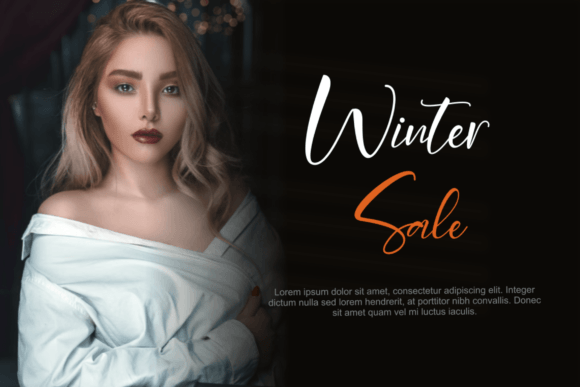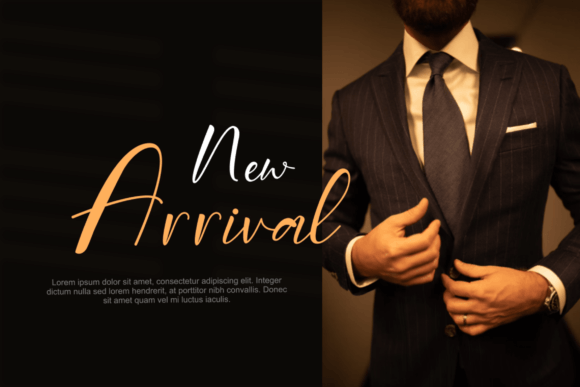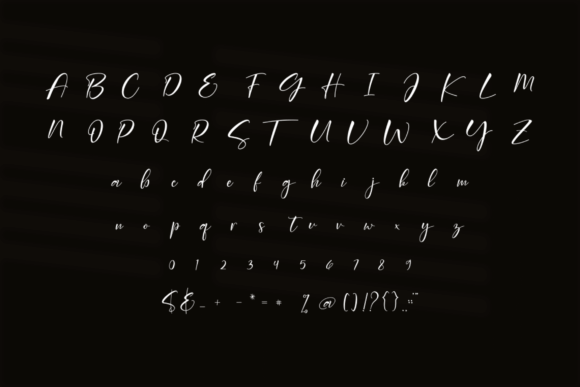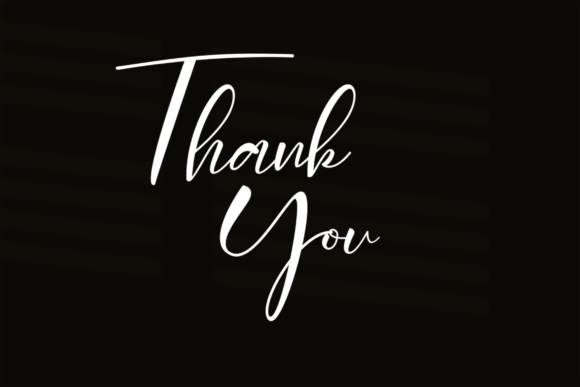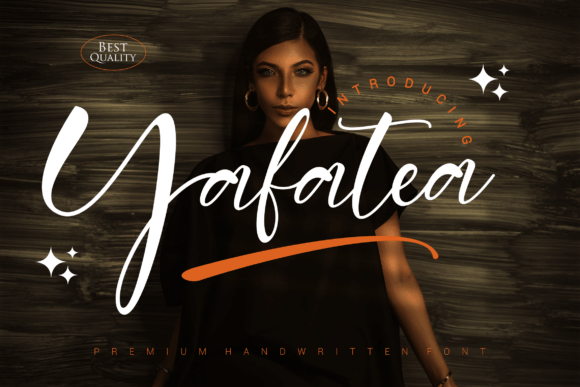
Yafatea Font
About Yafatea Font
Yafatea is an adorable and genuine handwritten font that radiates charm and character. This versatile font fits many branding projects, such as logos, t-shirt designs, exports, and more. Designers can use it brilliantly across diverse contexts, making it a valuable choice for those seeking a font that combines cuteness with authenticity.
Playful Handwritten Style
The appeal of Yafatea lies in its playful handwritten style. It adds warmth and personality to your designs, making it a wonderful fit for projects aimed at connecting with audiences on a personal level. This connection is crucial, especially in marketing materials where you want to engage consumers effectively.
Logo Design
For logo design, Yafatea helps create visually appealing logos while conveying a sense of approachability. Its cute, handwritten style adds a unique touch that sets your brand apart and makes it memorable. In fact, a well-designed logo using Yafatea can contribute significantly to brand recognition and consumer trust.
T-Shirt Designs
When used in t-shirt designs, Yafatea brings a playful vibe. It powerfully conveys fun messages that resonate with a bold audience. This quality makes it perfect for youth-oriented designs that aim to attract attention and express individuality. You could use this font for limited edition shirts or for promoting special events and campaigns.
Export Projects
In export projects, Yafatea’s authenticity helps establish strong connections with customers. Whether you are working on product labels, packaging, or promotional materials, this font adds inviting and relatable qualities to your export efforts. A product that employs Yafatea can stand out on shelves and attract consumers’ interest due to its friendly yet professional appearance.
Versatility in Design
In various contexts, Yafatea shines as a font that balances cuteness with authenticity. Its versatility enables it to adapt to multiple design needs, making it a valuable asset for an array of creative projects. You can apply it in brochures, invites, and even personal stationery as it continues to impress with its unique style.
In summary, Yafatea is more than just a font; it is a creative tool that combines cuteness with sincerity. Its playful style makes it a charming choice for numerous applications such as branding, t-shirt designs, exports, and beyond. By embracing Yafatea, see how it enhances your work with its adorable and genuine appeal. You will find that this font is not just visually appealing; it also adds personality, making your designs relatable and engaging for your audience.